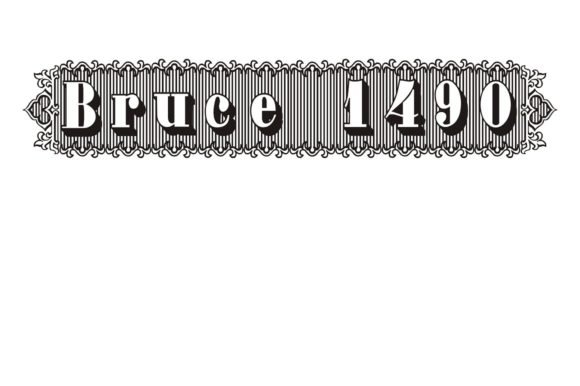
The Art of Timeless Typography
As a designer, have you ever been stuck on a project, struggling to find the perfect font to convey the essence of your vision? We’ve all been there. But what if you could tap into the rich history of typography and bring a piece of the past into your present-day design? That’s exactly what we’ve done with the Bruce 1490 Font, a stunning revival of a rare 1882 catalog from Intellecta’s collection.
The Bruce 1490 Font is a masterful recreation of the ornate ribbons and typography found in George Bruce’s original catalog. By combining these elements with the elegant GrasVibertTwo font, we’ve created a unique and captivating design tool that’s sure to elevate your projects. For designers, this font is a treasure trove of inspiration and creativity, offering a chance to pay homage to the past while pushing the boundaries of modern design.
Bruce 1490 Font Key Features
- Unique Characteristic: Designed with a unique blend of medieval and modern elements, making it suitable for various design applications
Bruce 1490 Font Review
As a designer, I was excited to dive into the Bruce 1490 Font and see what it had to offer. The font has a certain charm to it, reminiscent of traditional printing techniques from centuries past ✨. The detailed flourishes and ornate lettering are a testament to the designer’s skill and attention to detail. The font is perfect for adding a touch of elegance and sophistication to any design project.
- Unique and intricate design elements ✨
- Excellent for traditional or vintage-themed designs
- Supports a wide range of languages
However, I did encounter some limitations with the Bruce 1490 Font ⚠️. The font’s size and file size can be quite large, which may cause issues with slower internet connections or older systems. Additionally, the font may not be the best choice for modern or minimalist designs, as it can feel a bit overwhelming.
Overall, I’m impressed with the Bruce 1490 Font, but it’s not a one-size-fits-all solution. If you’re looking to add a touch of vintage charm to your designs, this font is definitely worth considering. Just be mindful of its limitations and use it in the right context.
Getting the Most Out of the Bruce 1490 Font
To get the most out of the Bruce 1490 Font, use it for:
- Historical or vintage-themed designs
- Book covers and book titles
- Labels and packaging design
The Bruce 1490 Font is commonly used for:
- Typography in historical fiction novels